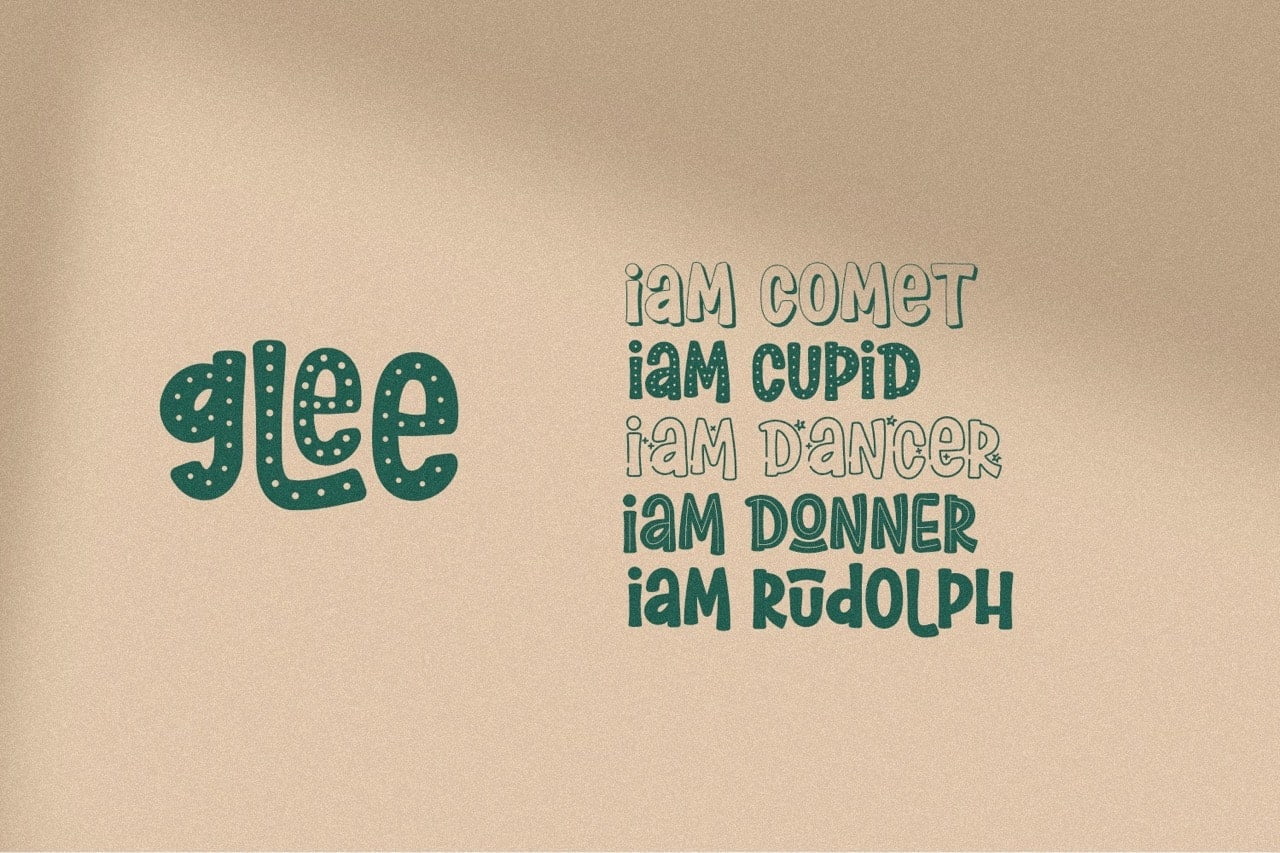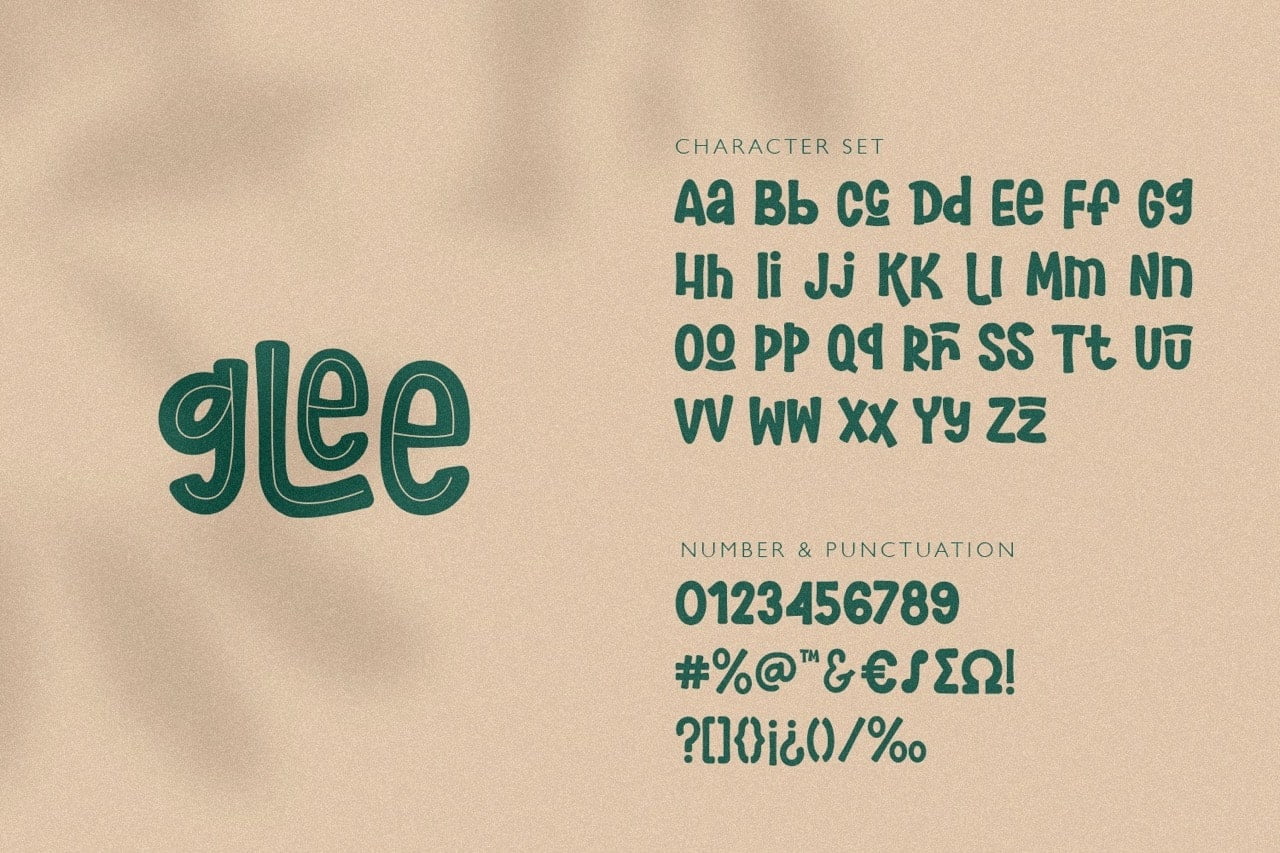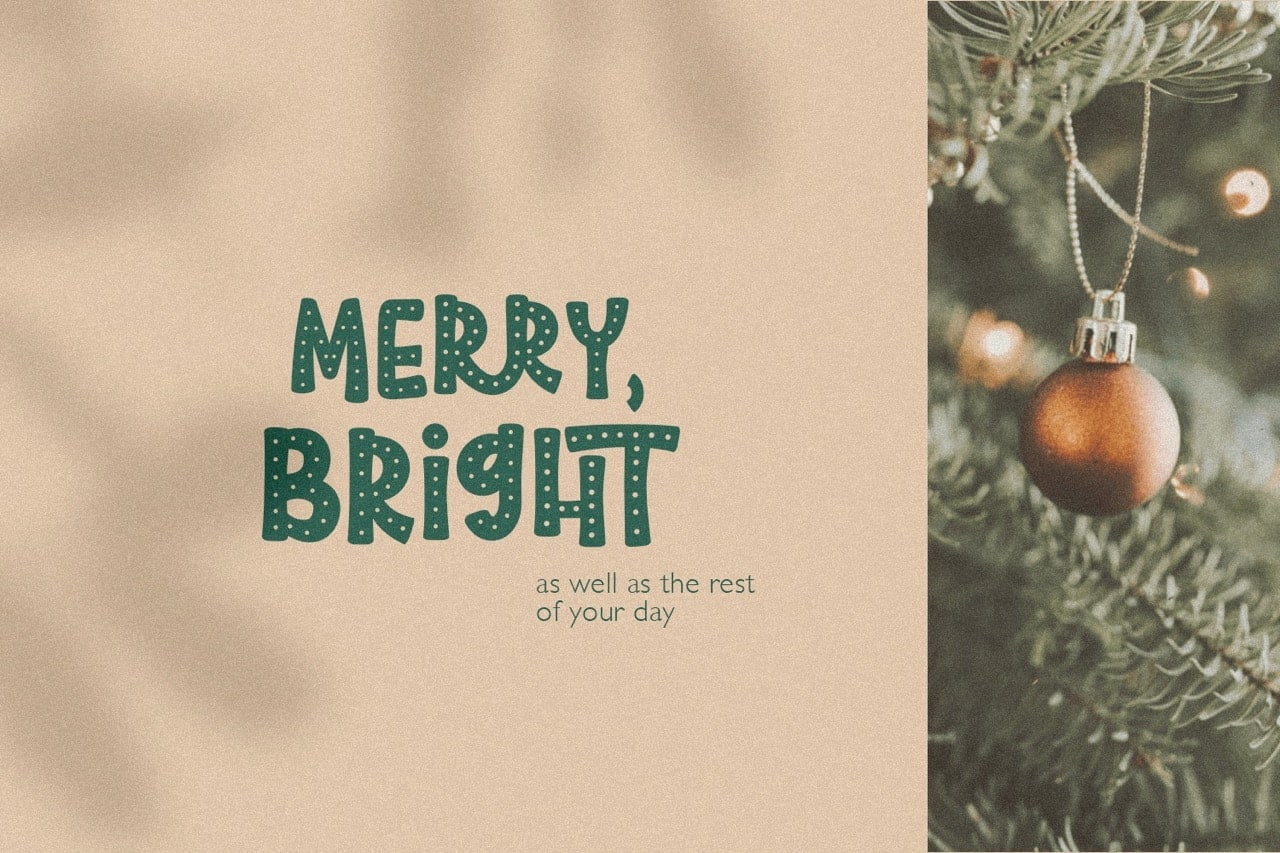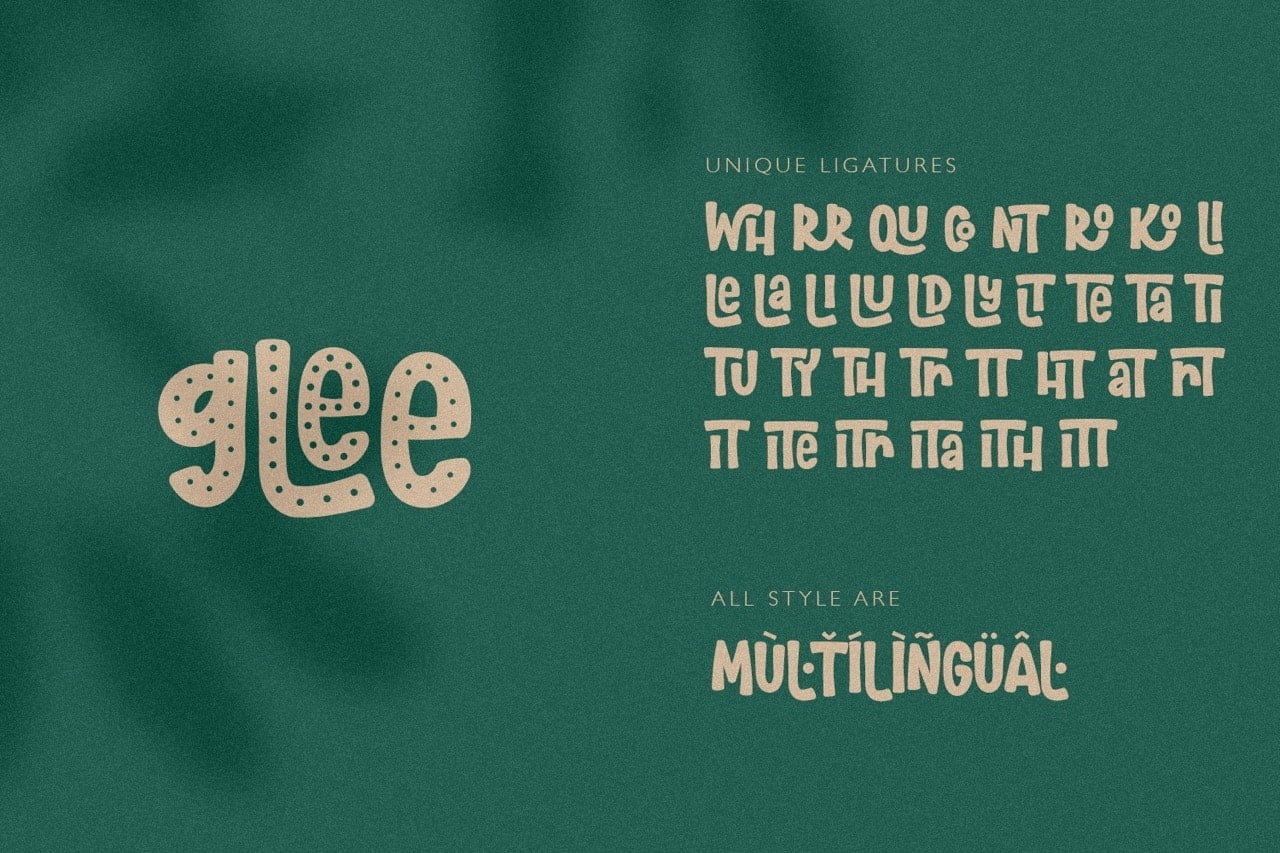
Spice up your festive projects with Glee, a fun and modern Christmas typeface perfect for sleigh rides, caroling, and more! Get creative and add some holiday cheer!
- 5 Styles (Dancer, Comet, Cupid, Donner, Rudolph)
- Stylistic Ligatures and Alternate Glyphs
Glee Christmas Font